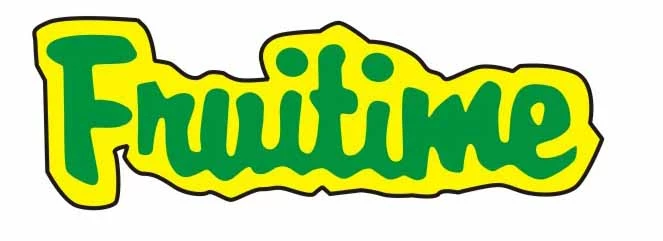
Font type?
Can someone tell me what font type this logo image is???
The original designer went missing, and we dont have info on this logo. We need to re design but need the font type?
Maybe you can use:
http://www.whatfontis.com/Brophy-Script.font
The original designer went missing, and we dont have info on this logo. We need to re design but need the font type?
A few questions about what you actually have and wish:
How exactly do you need to redesign?
Which file format is the logo (sample) you have, and is it vector or raster (vector like native objects/paths in Illustrator, raster like coloured pixels such as much of the artwork in Photoshop and the contents export formats such as PNG, GIF, and JPEG)?
That didn't use a font. Notice the two different forms of the letter
'i', for example.
Thanks, so the only way to redo this font is to re design i? How did they do it in the first place?